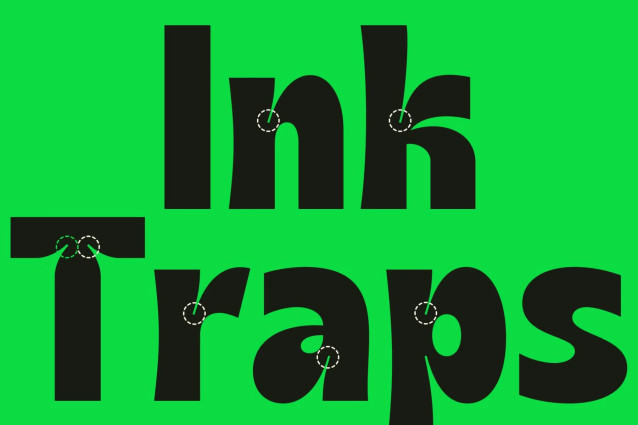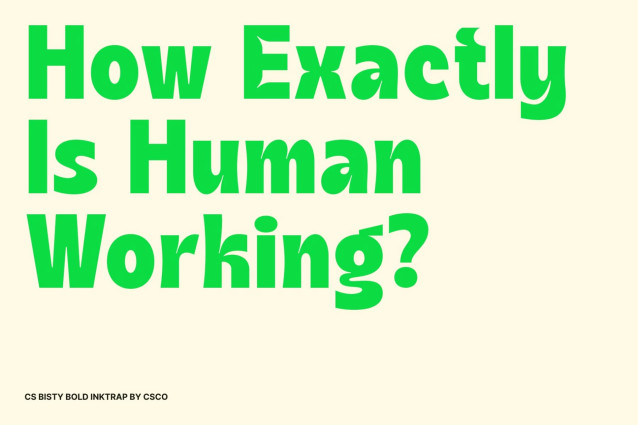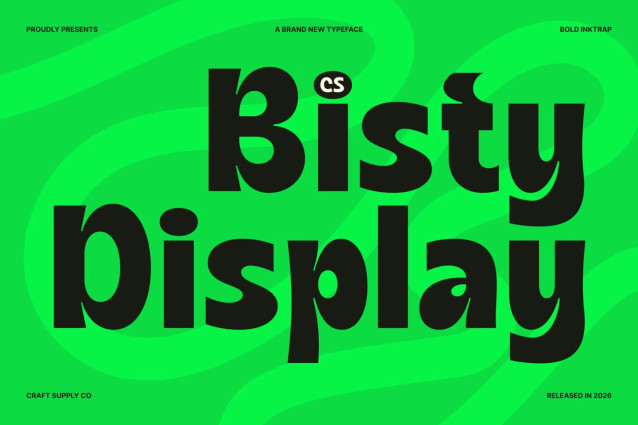
CS Bisty – Inktrap Font
CS Bisty – Bold Sans Serif Font: Where Striking Precision Meets Playful Energy
Strong Forms with Modern Visual Impact
This is a bold sans serif display font designed to capture attention through its powerful structure and contemporary aesthetic. Featuring modern, clean letterforms and striking lines, it delivers a confident visual presence that feels fresh, dynamic, and highly memorable. Its bold construction ensures excellent visibility, making it ideal for display applications that demand impact and clarity.
Inktrap Details with Unique Character
This font introduces subtle cuts and refined openings that add personality and visual interest to every character. These typographic features not only improve readability but also create a unique and recognizable identity. The result is a font that feels both technically refined and creatively expressive.